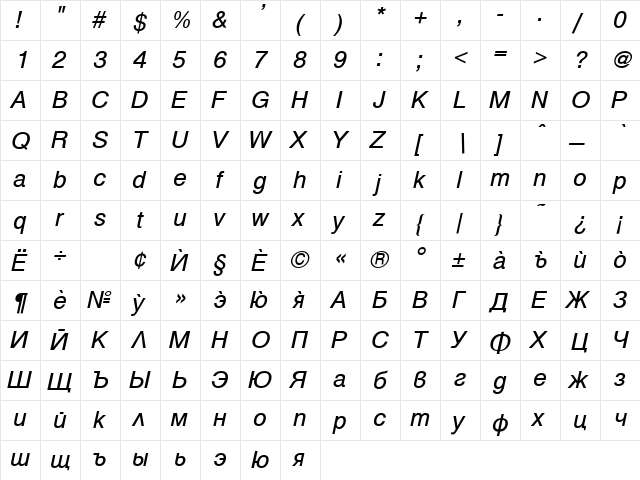
Helen Italic
Design Context for Helen Typeface
Helen is a composed and adaptable typeface that performs quietly and consistently across a wide range of design contexts. Its italic angle brings a sense of urgency and motion to the letterforms.
Pro Tip: Try Helen for annotation and caption copy alongside an upright companion — the contrast in angle creates a dynamic but ordered typographic system.